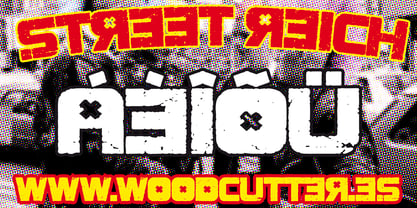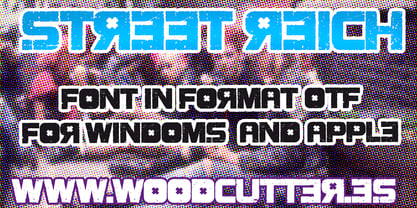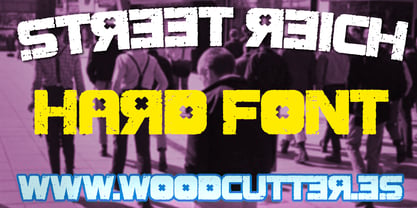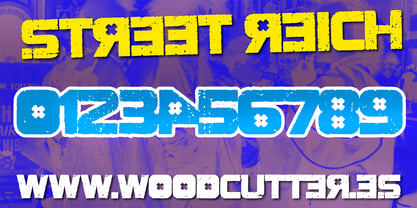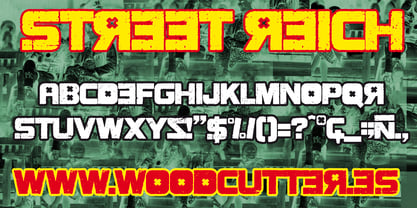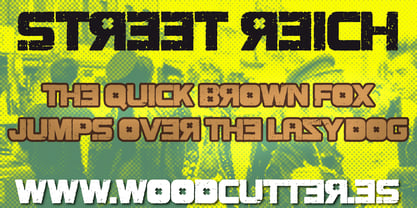
Street Reich
by Woodcutter
The Street Reich Font Family was designed by Jordi Manero and published by Woodcutter. Street Reich contains 1 styles. More about this family
Street Reigh is a capital letter typeface with accents, inspired by solid Soviet aesthetics, designed to convey bold, impactful, and visually commanding messages. Each letter features a strong, geometric structure with subtle wear and tear, giving it a vintage, weathered look—like a political mural or protest banner that has withstood the passage of time. This blend of rugged strength and textured imperfection brings character and attitude, echoing political propaganda, street art, and constructivist graphics. The family includes two styles: the main Street Reigh version with solid, eroded lettering, and a cleaner variant ideal for more minimal yet still rebellious compositions. Perfect for posters, logos, covers, T-shirts, political branding, editorial projects, or urban design, this typeface transmits a powerful and uncompromising energy. Street Reigh is more than a typeface—it’s a visual manifesto, rooted in history and roaring with contemporary force. Its bold presence and distinctive style make it perfect for standing out in any composition, while always maintaining a strong, rebellious, and symbolically charged aesthetic.
Designers: Jordi Manero
Foundry: Woodcutter